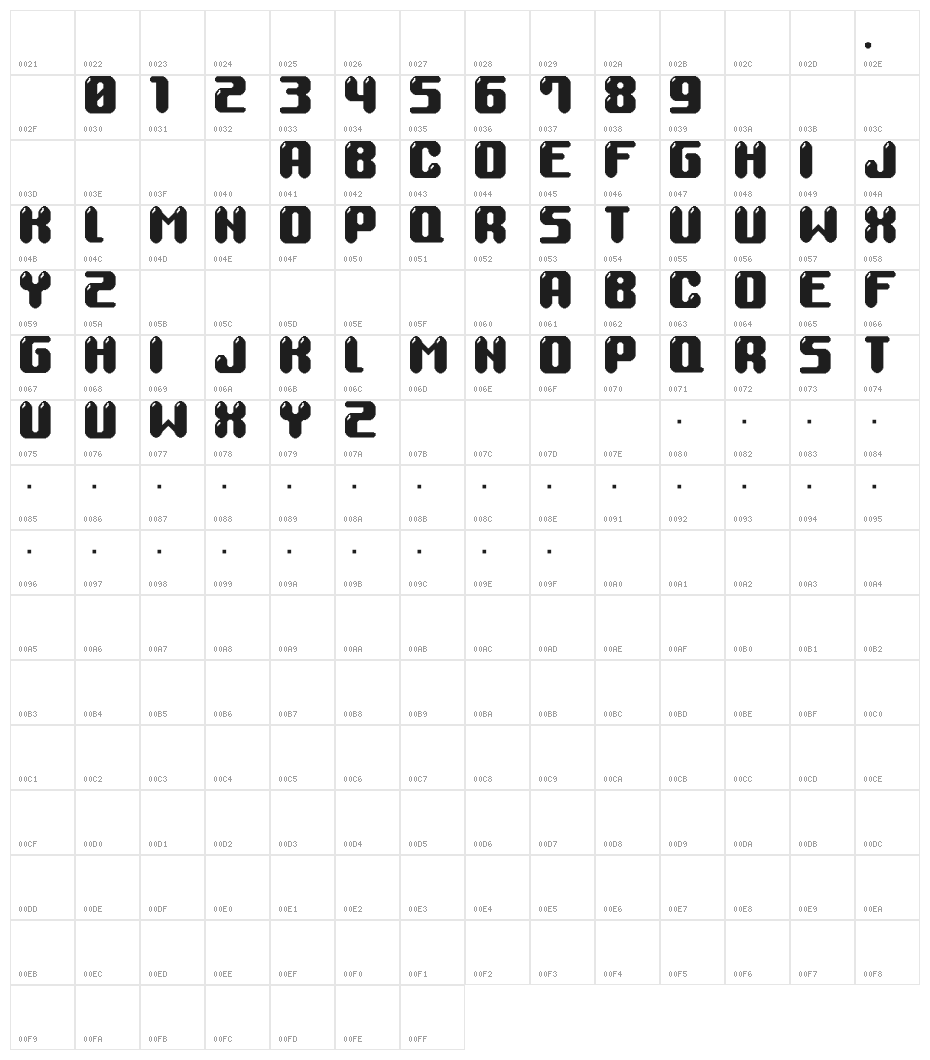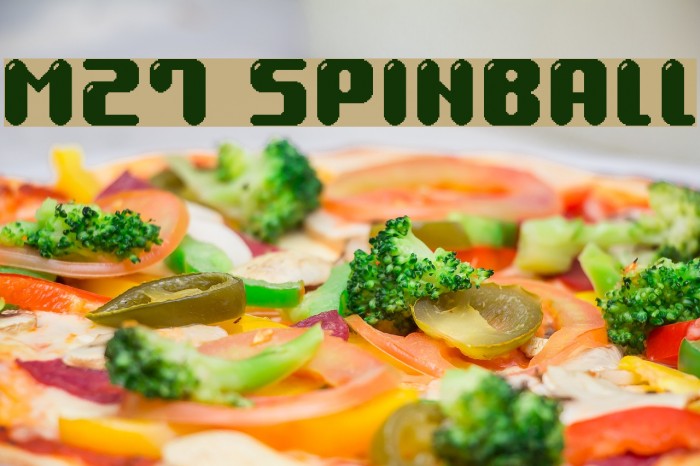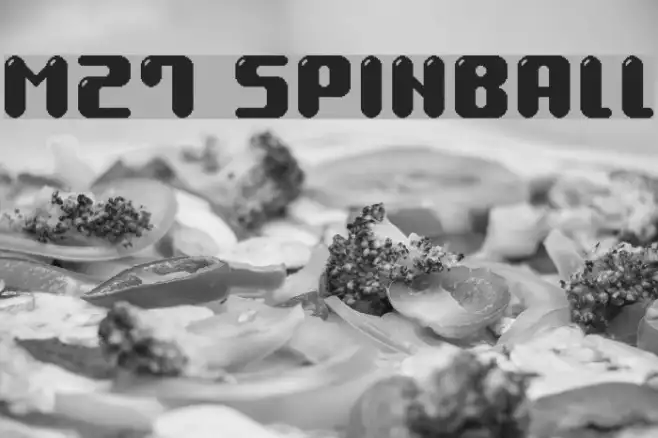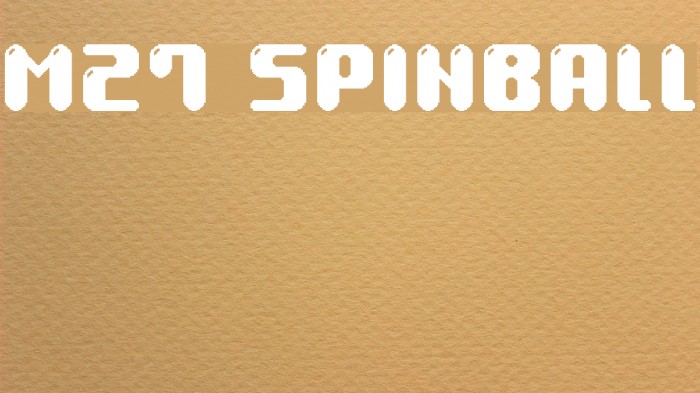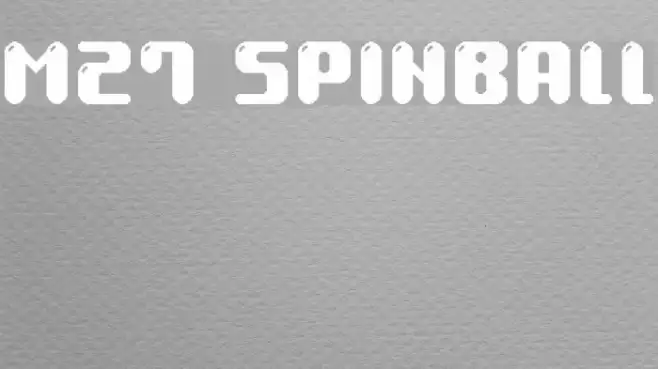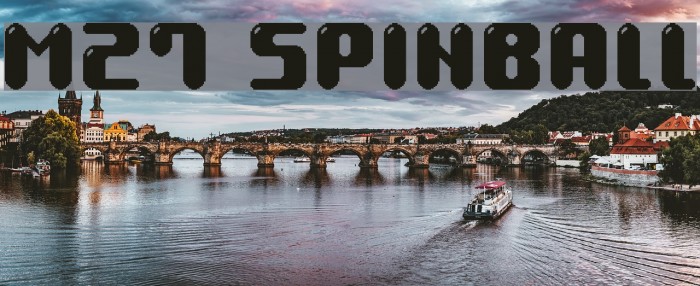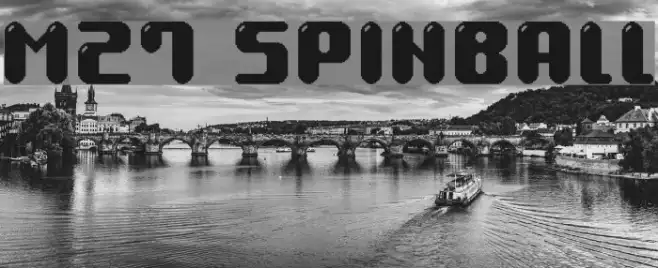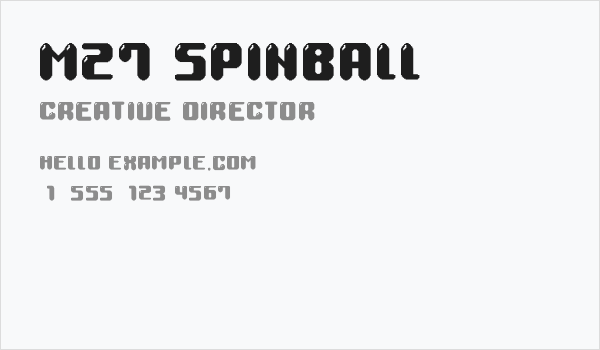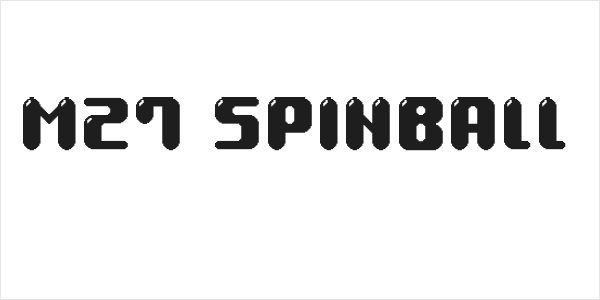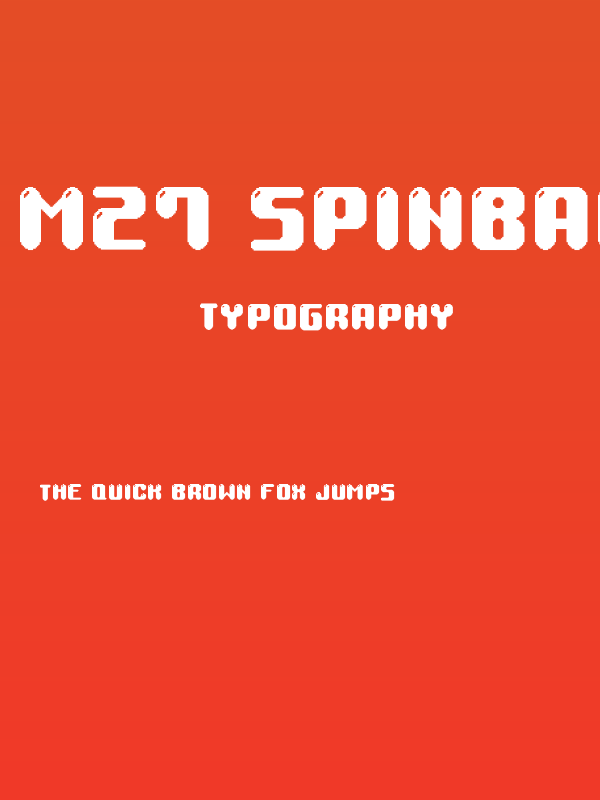
M27_SPINBALL Font
M27_SPINBALL Description
This font features a bold and geometric design with rounded edges, creating a modern and playful appearance. The characters are uniformly thick, providing a consistent and solid look across both uppercase and lowercase letters. The numbers maintain the same style, ensuring a cohesive appearance throughout. The font's unique style is characterized by its blocky structure and smooth curves, making it stand out in any design. It is particularly suitable for projects that require a strong visual impact, such as branding, posters, and digital media. The absence of serifs and the uniformity in stroke width contribute to its contemporary and clean aesthetic.